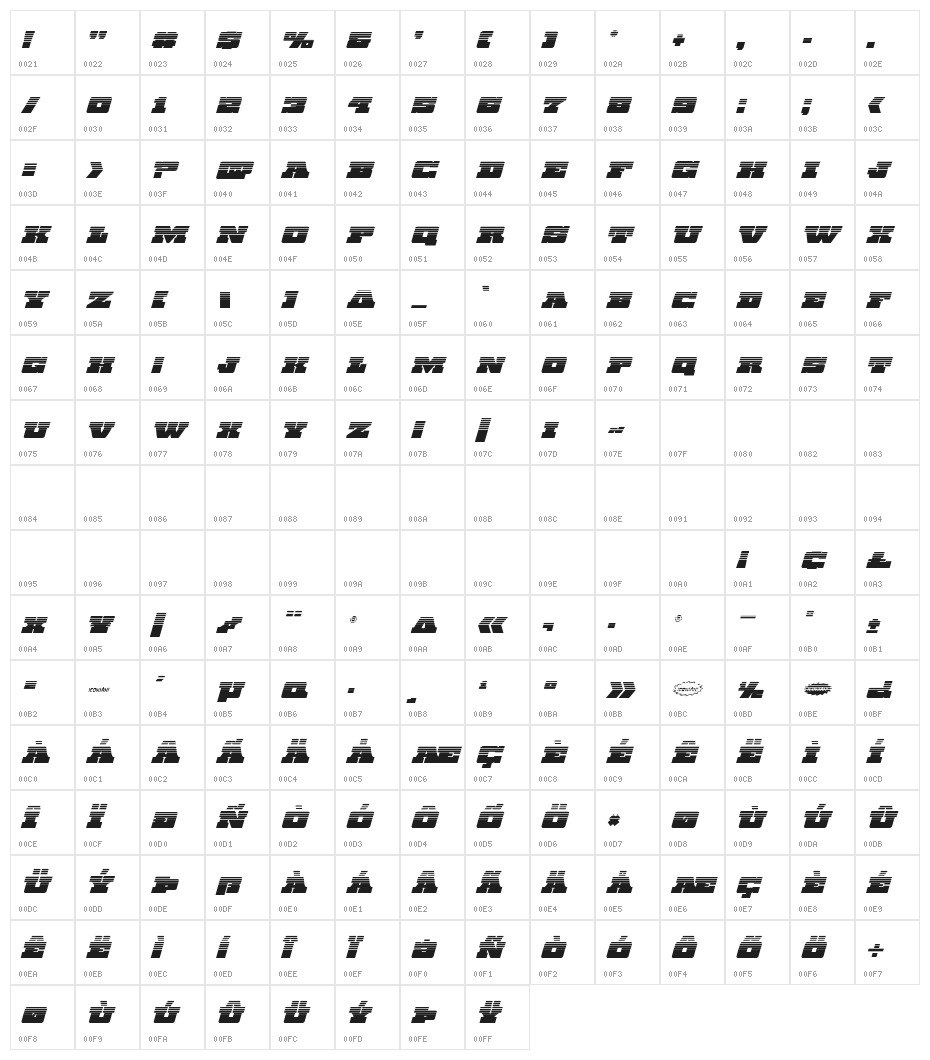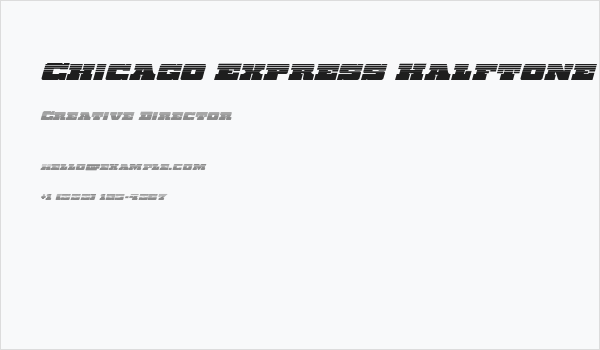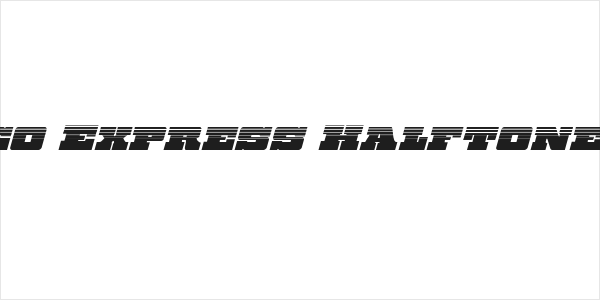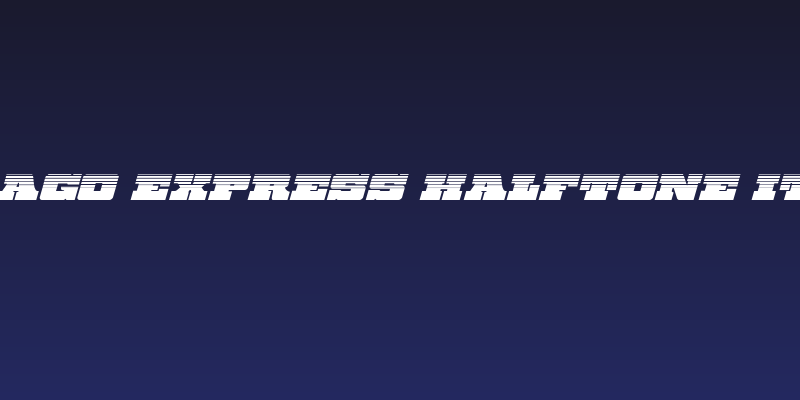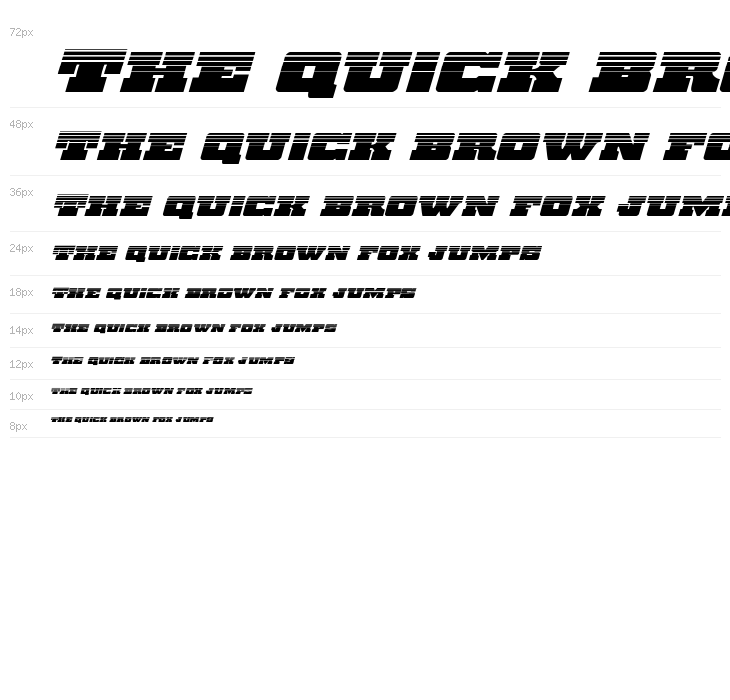
Chicago Express Halftone Italic Font
Chicago Express Halftone Italic Description
This font features a bold, italicized style with a distinctive halftone effect that creates a sense of motion and speed. The characters are wide and blocky, with horizontal lines cutting through the upper portions, adding a dynamic, futuristic feel. The uppercase and lowercase letters maintain a consistent width, enhancing the boldness and impact of the text. Numbers and special characters are designed with the same aesthetic, ensuring uniformity across all elements. The font's unique style makes it stand out, ideal for projects that require a strong visual presence.
| Proposed Projects | Ideal for sports branding, automotive advertisements, video game titles, and dynamic poster designs. |